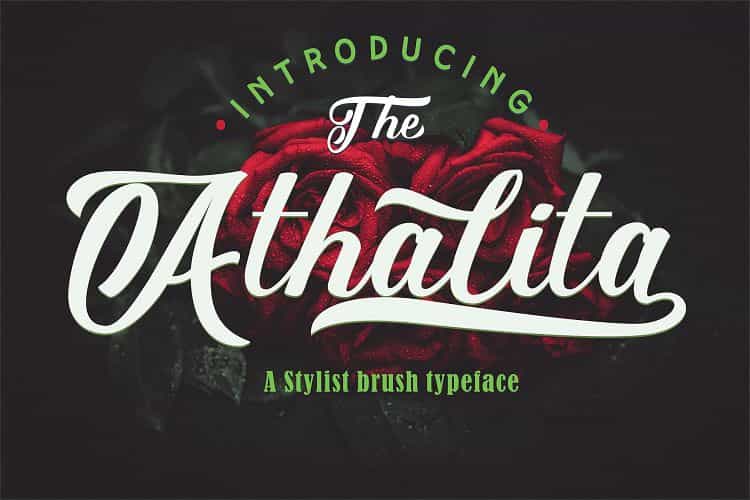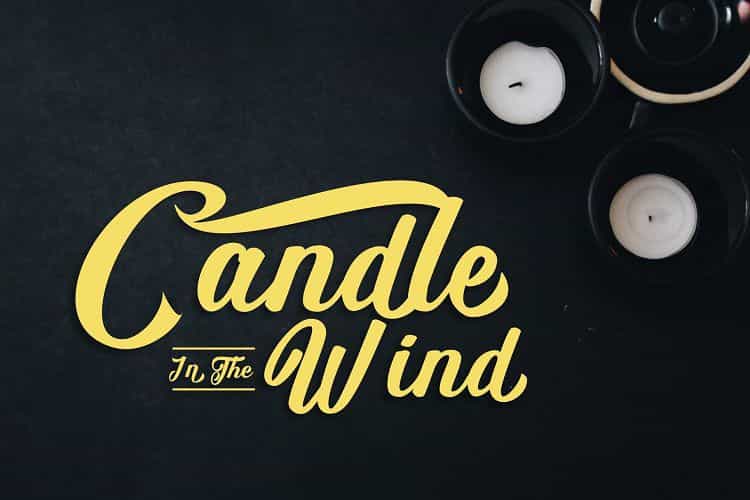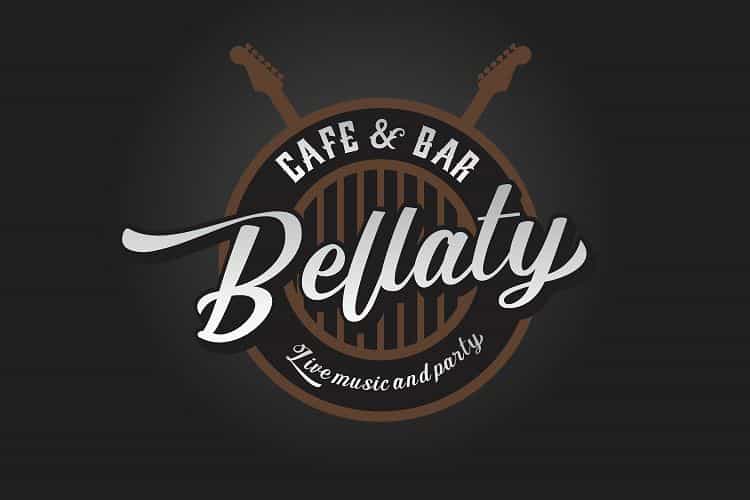
Hi designer. A stylist brush typeface. Introducing Athalita Font. A font with a brush stroke style, looks casual, beautiful, charming and trendy but at the same time it is still timeless. can be used in different designs. The amazing scratches + Opentype feature